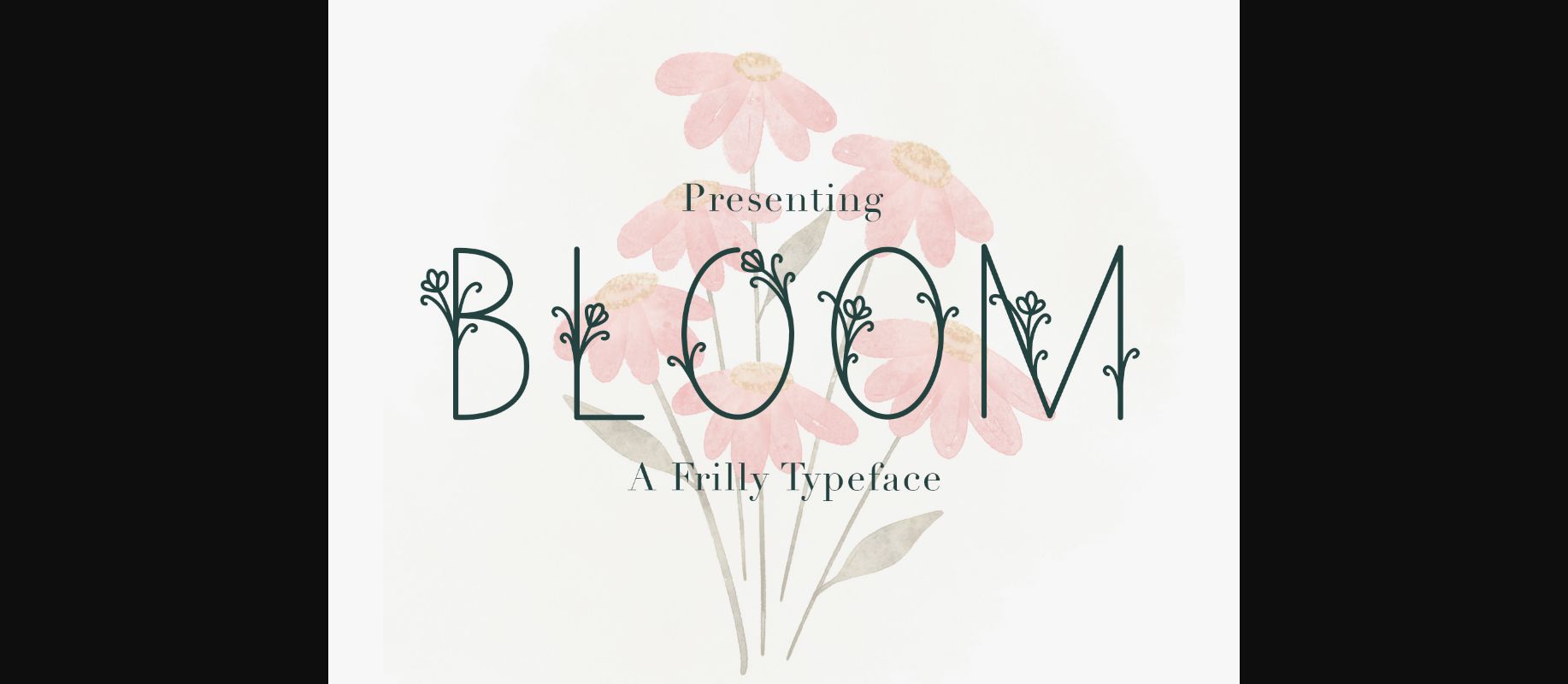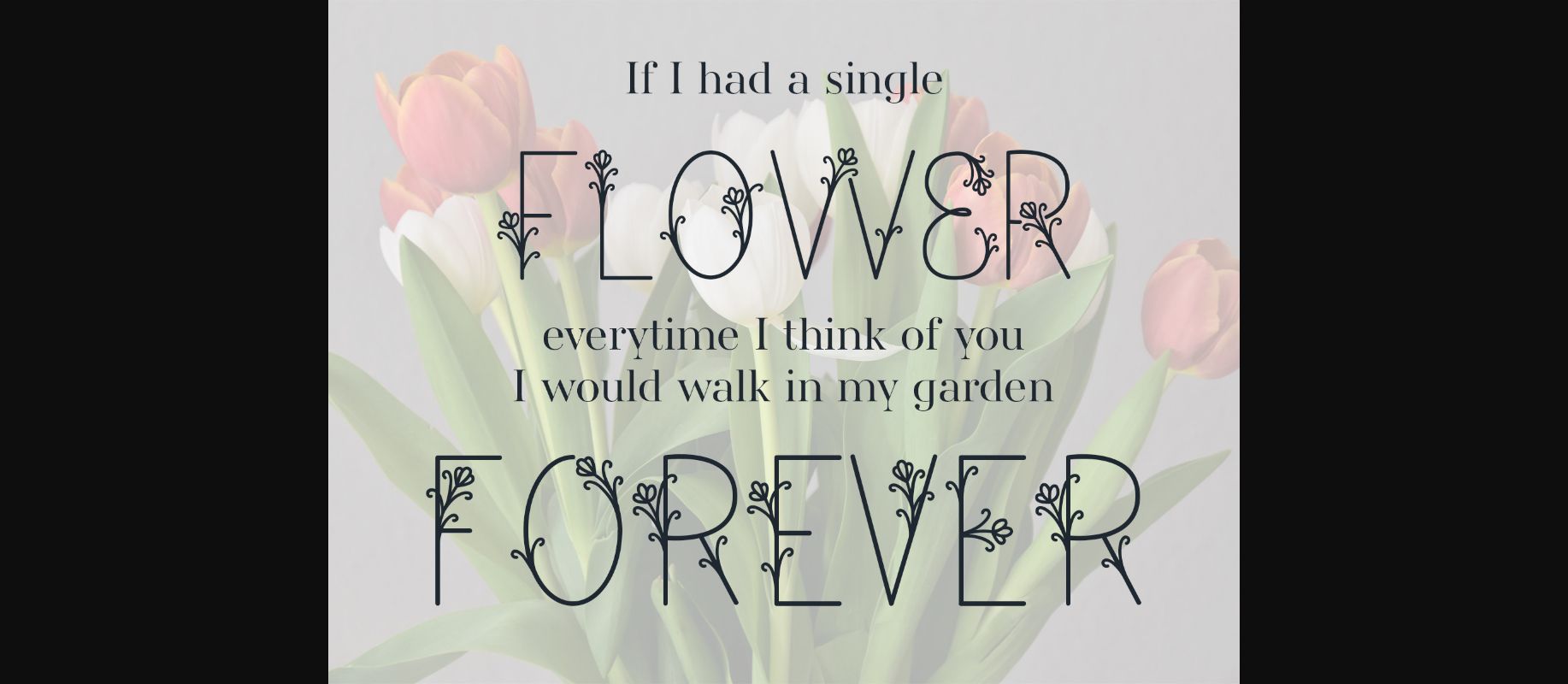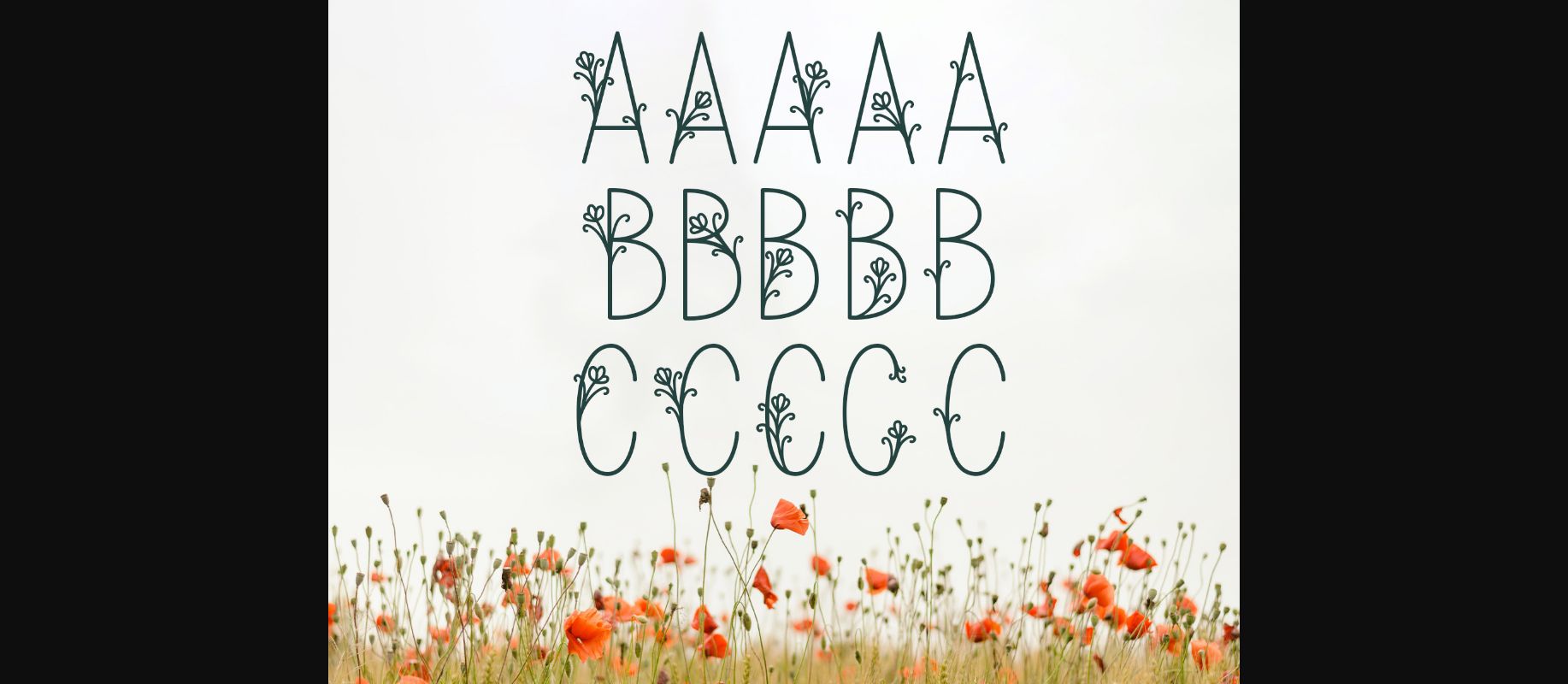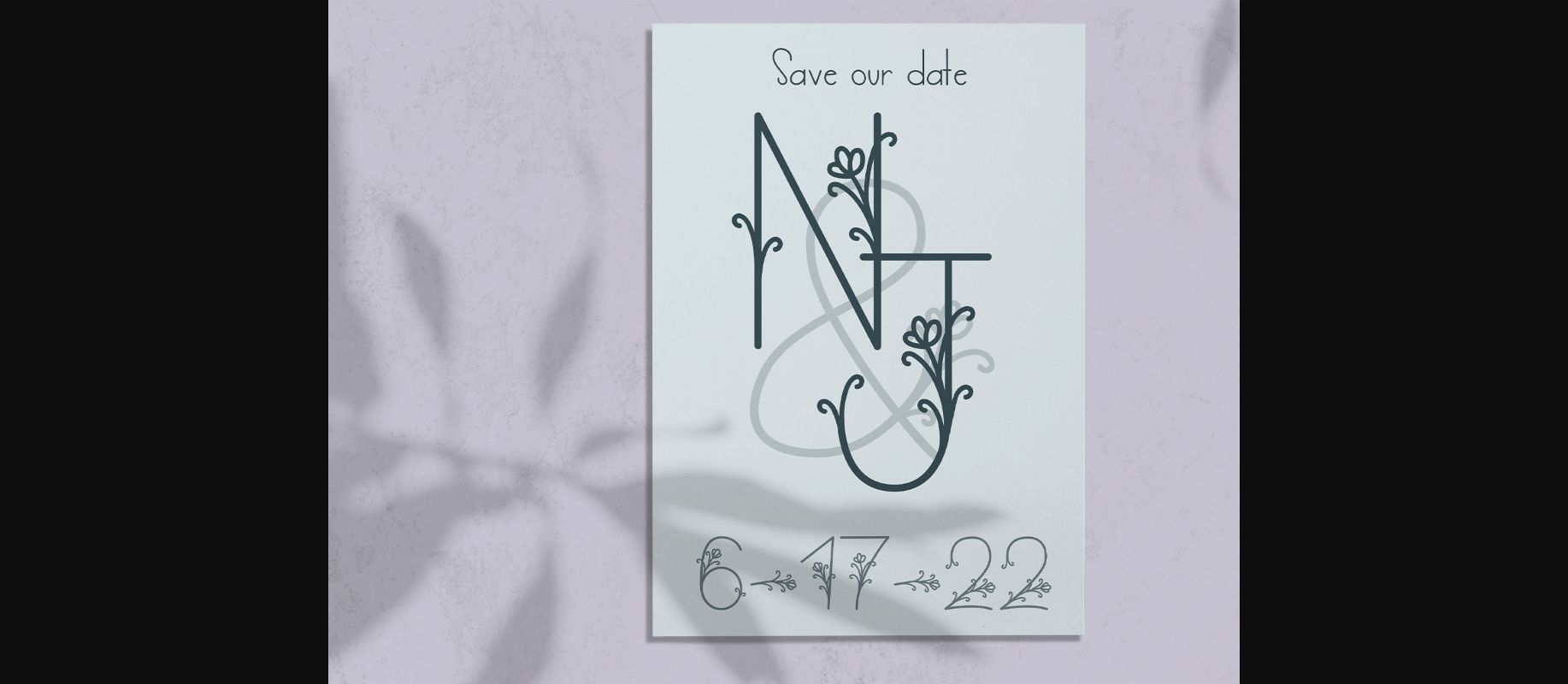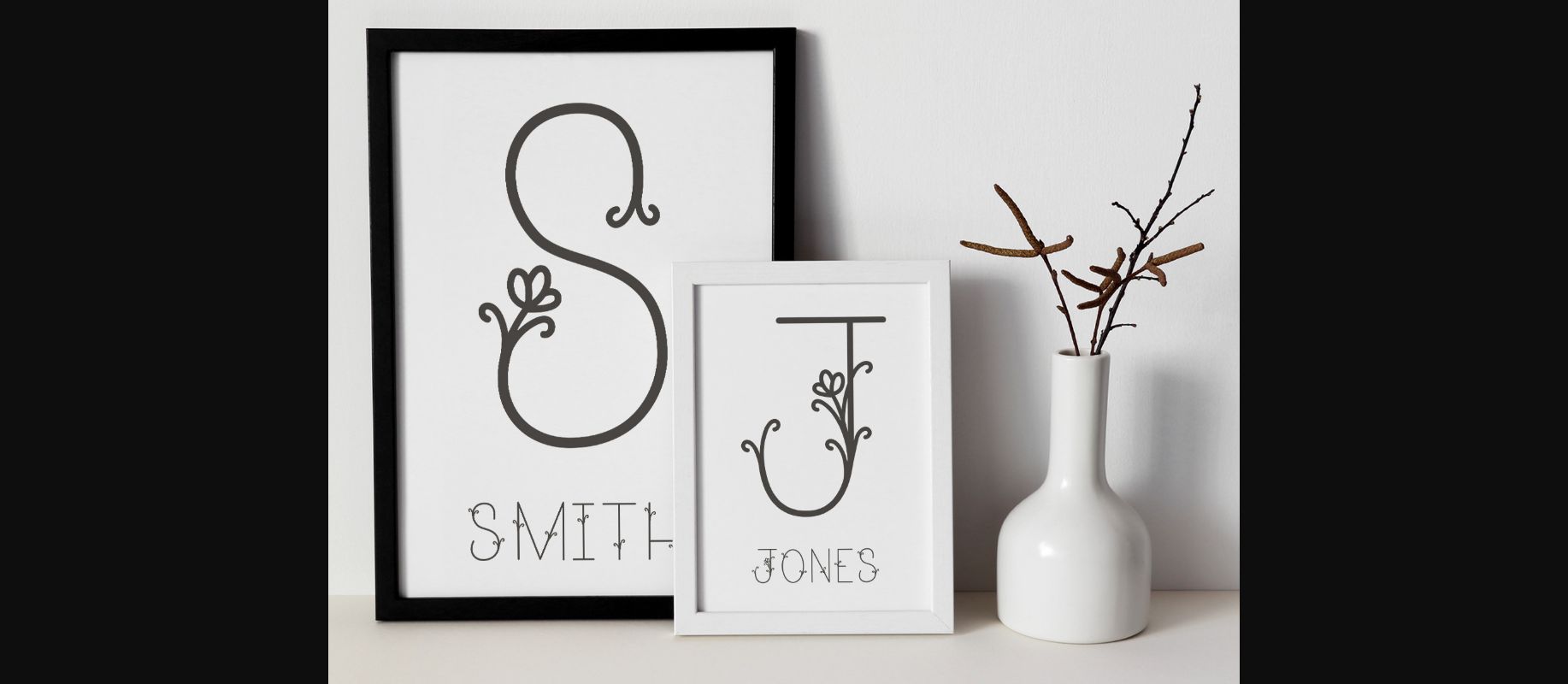
Bloom Font
About Bloom Font
Bloom is a delicate and frail decorative font, featuring lovely ornaments on each character. It will add a luxury spark to any design project that you wish to create! This font is PUA encoded which means you can access all of the amazing glyphs and ligatures with ease!